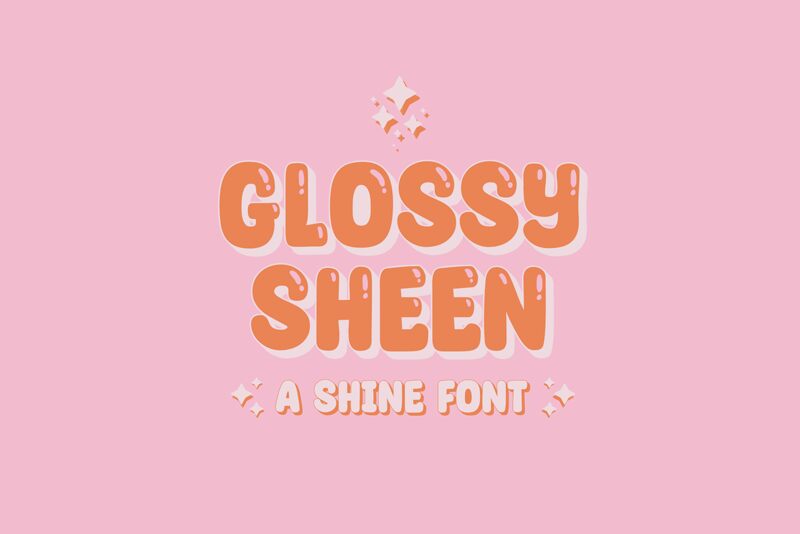
Introducing Glossy Sheen, a bold and cartoonish display font designed by Ali Hamidi. This font is perfect for projects that demand a playful yet professional look, such as logos, posters, children's books, and more. Its unique letterforms offer an eye-catching visual appeal - perfect for making your project stand out! From invitations to t-shirt designs, Glossy Sheen will make your work shine.
Glossy Sheen
Ali Hamidi